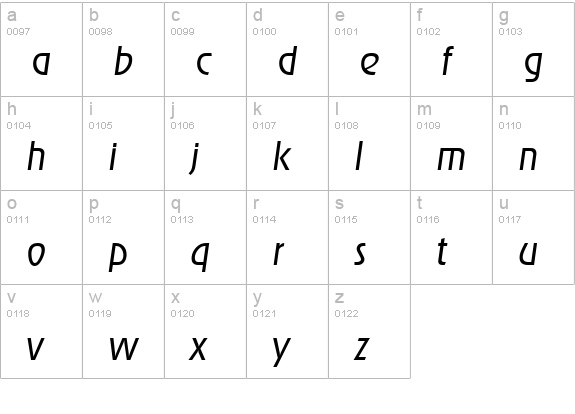
OnStageSerial-Light-Italic is a refined, elegant, italic variant in the OnStageSerial typeface family \xE2\x80\x94 well suited to elegant body text, refined sub-headings, and luxury branding.
OnStageSerial-Light-Italic is a sleek and modern font that exudes elegance and sophistication. Its light weight and italic style give it a touch of delicacy and grace, making it perfect for adding a subtle yet refined touch to any design project. The clean lines and subtle curves of this font create a sense of elegance and professionalism, making it a versatile choice for a wide range of applications. Best of all, OnStageSerial-Light-Italic is available for free download at FontsMarket.com. This means you can easily access this beautiful font and incorporate it into your projects without any cost. Whether you're working on a branding project, a website design, or any other creative endeavor, OnStageSerial-Light-Italic is sure to elevate your work with its timeless style and sophistication. Download it today and add a touch of elegance to your designs.